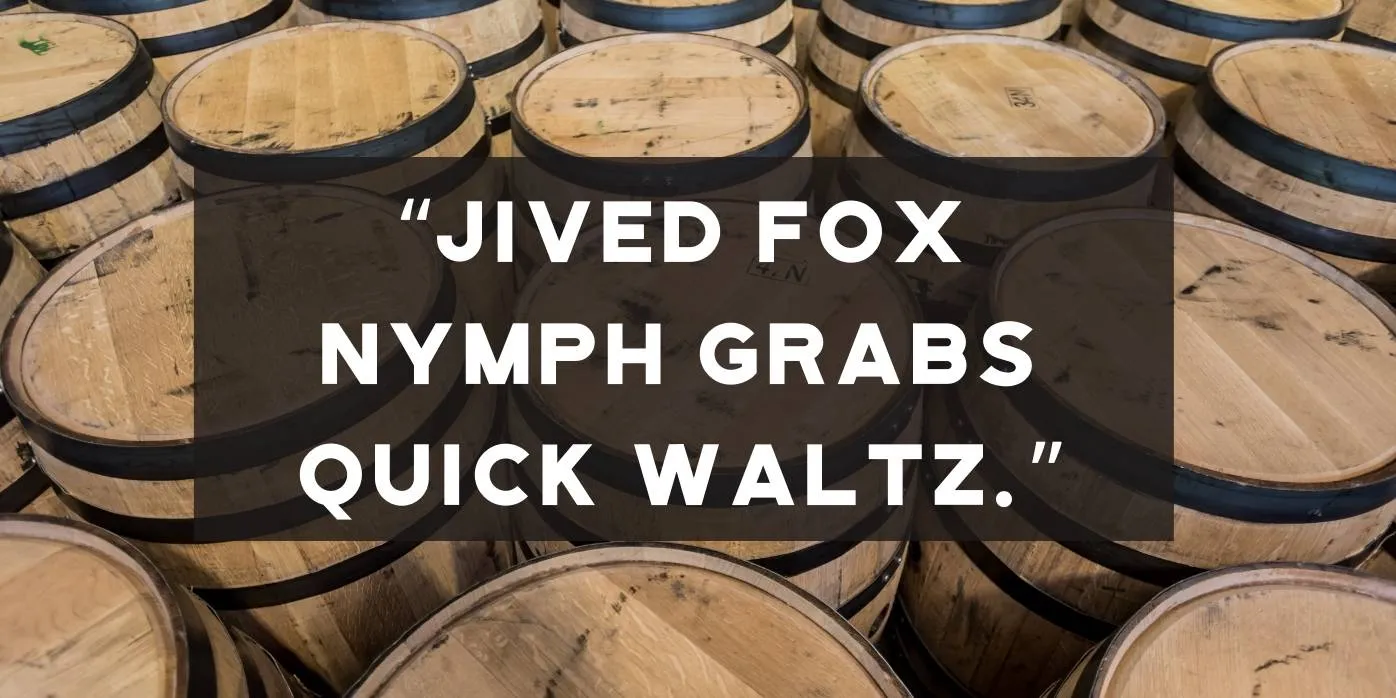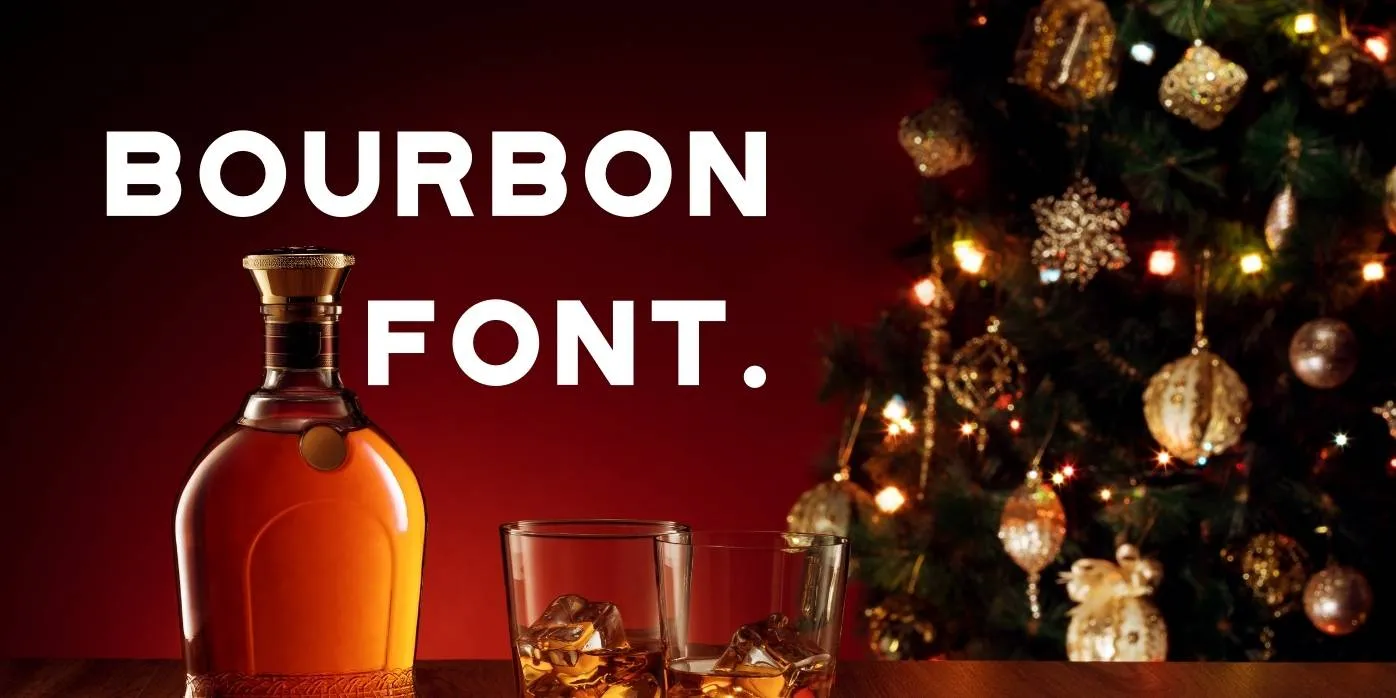
Bourbon Font
Bourbon Font has massive fame in the industry and it was developed by Mattox Shuler. This typeface belongs to the Fancy Typeface. This typeface is perfect for all writing purposes and it is developed by keeping the standards of this font one can be able to write any language or custom script. This attractive font comprises uppercase and lowercase alphabets that are available in Latin and Cyrillic scripts, numerals, and symbols.
Copy and paste of this font are classic. You can use its similar font Fiesta Font. This staggering font was first introduced and became famous in the market as Bold, light, and regular. This typeface is being progressively demanded in Hollywood movies.
Everyone knows how actors are dressed up for their roles with this font t-shirt on it. It is also best for tattoo designing that give an amazing look to tattoos on the chest. Generally, this font is perfect for commercial purposes CEOs to give their business cards in this font. This font tool generator is helpful for various graphics designs.